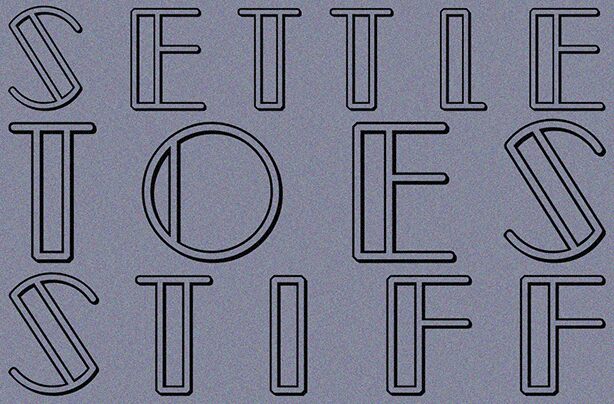
Heuochs Hollow Regular
Heuochs Hollow font by Vladimir Nikolic is a free display font characterized by its sleek and modern design. With minimalistic geometric shapes, it brings a futuristic flair and an open structure to the texts. The creation features a buzzing retro style hinted by its unusual layout of characters, which makes it perfect for catching viewers’ attention.